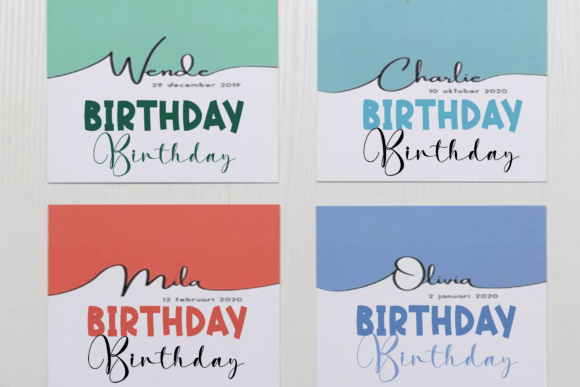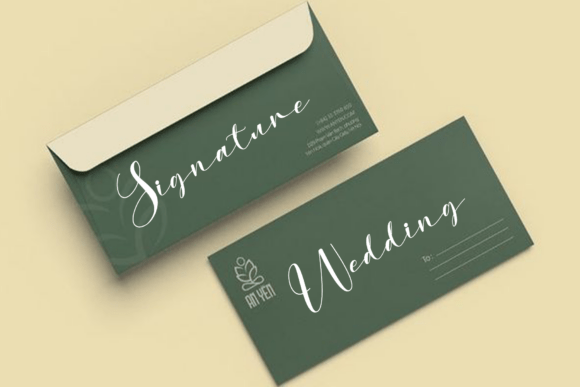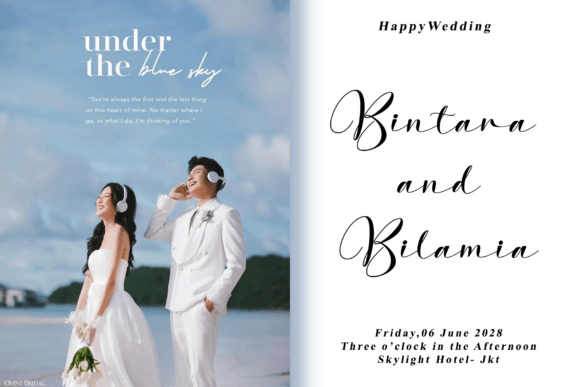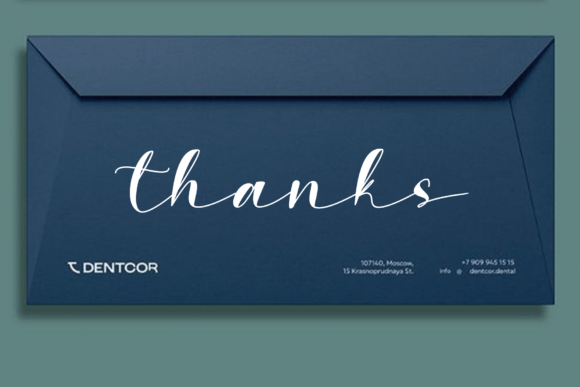
The Art of Capturing the Magic of the Holidays
As I sit down to plan my holiday marketing campaign, I’m struck by the same question that comes to mind every year: how do I capture the warmth and magic of this special time? For me, it all starts with the perfect font – one that whispers elegance, sophistication, and a touch of whimsy. And that’s exactly what the Holiday Journals Font delivers.
With its unique blend of calligraphy and organic charm, the Holiday Journals Font is the perfect choice for designers looking to add a personal touch to their projects. Whether it’s a boutique product packaging, an upscale lifestyle marketing campaign, or a creative editorial title, this font is sure to elevate your work to the next level. Its high-contrast visual rhythm and sweeping, looping ascenders create a sense of customized, artisanal artistry that’s impossible to replicate with other fonts.
Holiday Journals Font Key Features
- Font Family: Holiday Journals Font is a script font, ideal for creating festive and elegant designs.
- Unique Characteristics: Holiday Journals Font features intricate, handwritten letterforms with subtle flair and movement, giving it a personal and artistic touch.
Holiday Journals Font Review
I recently had the chance to work with the Holiday Journals Font, and overall, I’m impressed with its charm and versatility. ✨ The font’s design perfectly captures the essence of the holiday season, with elegant and playful elements that evoke a sense of nostalgia.
One of the things that stands out about this font is its range of styles. It includes a variety of weights, from light to bold, which makes it suitable for various design applications, from titles to body text. ✨ Additionally, the font’s script and swash elements add a touch of sophistication and whimsy, making it perfect for holiday-themed projects.
While the Holiday Journals Font is overall a great choice, there are a few limitations to consider. ⚠️ For one, the font may not be as readable at smaller sizes, which could be a concern for projects that require a lot of text. Additionally, the font’s design may not be suitable for modern or minimalist designs, as it has a more traditional and ornate feel.
Overall, I’m pleased with the Holiday Journals Font, and I think it’s a great choice for holiday-themed projects or designs that require a touch of elegance and sophistication. While it may have some limitations, the font’s versatility and charm make it a worthwhile addition to any designer’s toolkit.
- Range of styles (light to bold)
- Script and swash elements
- Perfect for holiday-themed projects or designs that require a touch of elegance and sophistication
- May not be as readable at smaller sizes
- Not suitable for modern or minimalist designs
Getting the Most Out of the Holiday Journals Font
To get the most out of the Holiday Journals Font, use it in conjunction with other festive elements, such as snowflakes, holly, or Christmas trees. Experiment with different font sizes and styles to add visual interest to your design.
The Holiday Journals Font is perfect for creating:
- Christmas cards and invitations
- Holiday-themed social media posts
- Festive newsletters and email templates
- Winter wonderland-themed party decorations and invitations